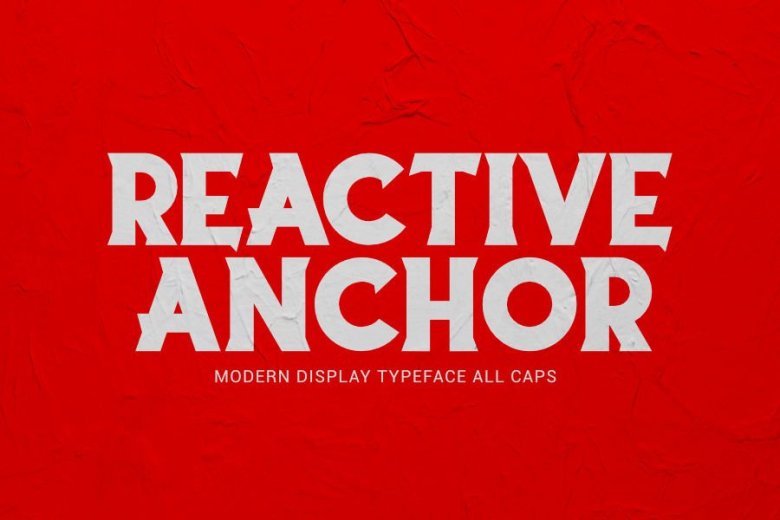
Reactive Anchor Serif Display Typeface
Reactive Anchor Font is condensed serif display typeface with strong characters to support your brand/project. This font can be used in modern theme and also in classic theme. Its main characteristics are the irregular trace and the solid presence in all its characters.